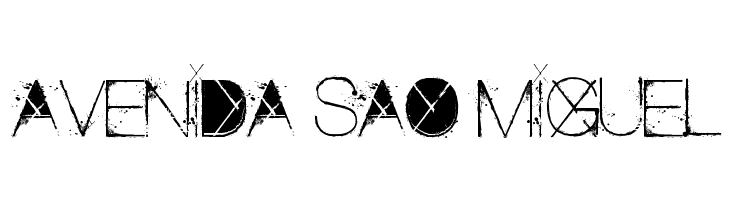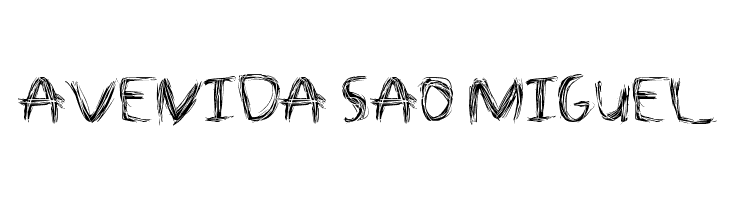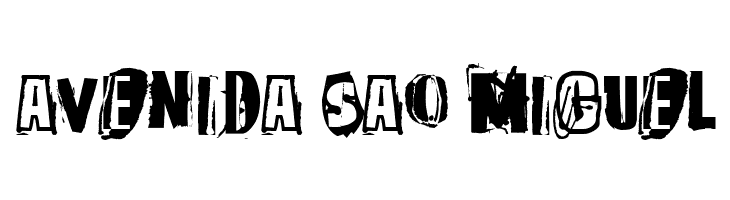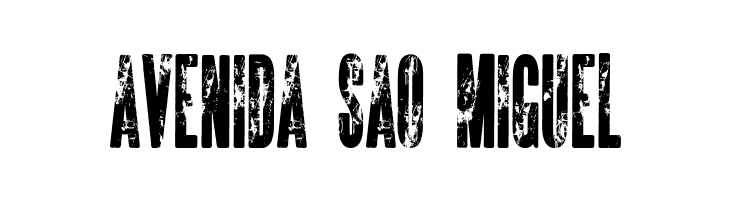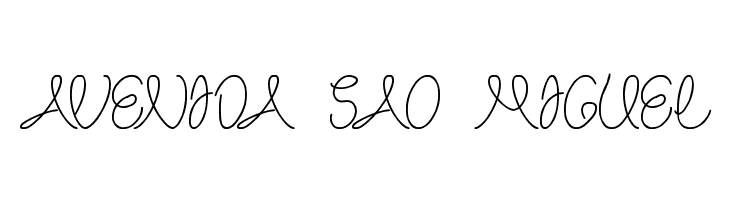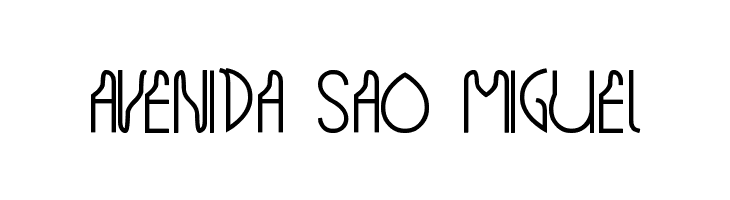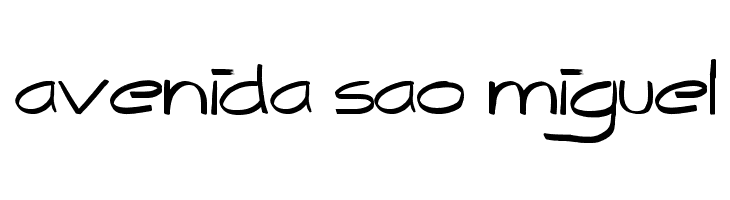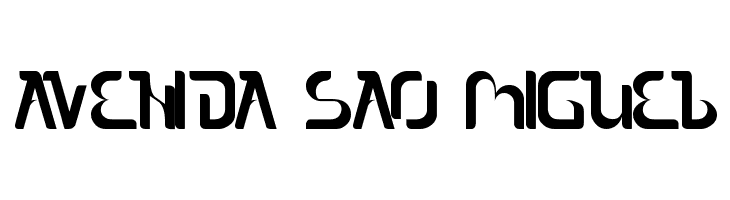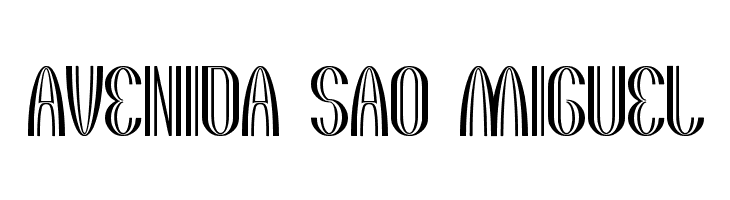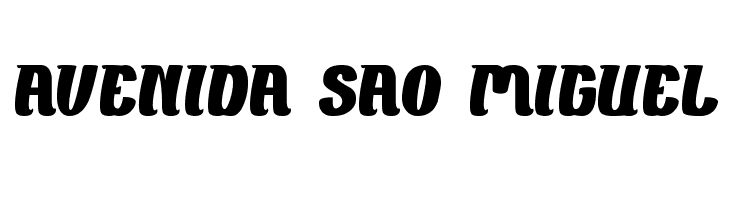
A distressed, grunge-style font with a rough, edgy texture and irregular strokes.
A bold, rounded font with a playful and dynamic style.
A playful, hand-drawn font with sketch-like strokes and artistic flair.
A bold, geometric font with sharp angles and a futuristic feel.
A bold, handwritten-style font with dynamic, marker-like strokes.
A bold, distressed font with a grunge and urban aesthetic.
A bold, art deco-inspired font with dynamic, multi-line characters.
A bold, Art Deco-inspired font with geometric and decorative elements.
A distressed, grunge-style font with a hand-drawn, energetic appearance.
A bold, rounded font with smooth curves and a modern, friendly appearance.
A modern, geometric font with a futuristic and dynamic style.
A bold, stencil-like font with thick strokes and cut-out sections, ideal for impactful designs.
A bold, futuristic font with geometric shapes and strong visual impact.
A playful font with characters inside triangular flags, ideal for festive designs.
A decorative, hand-drawn font with bold, sweeping strokes and intricate details.
A dynamic, sketch-like font with a playful and chaotic appearance.
A playful, hand-drawn font with a whimsical and dynamic style.
A playful, bold font with rounded edges and a blocky appearance.
A playful, bold font with rounded edges and a chunky, toy-like appearance.
A quirky and playful font with irregular shapes and whimsical curves.
An ornate and whimsical decorative font with intricate details.
A flowing, elegant script font with a handwritten style.
A wireframe-style font with a three-dimensional, technical look.
An elegant, flowing script font with interconnected, looping letterforms.
A bold, angular font with a futuristic and geometric design.